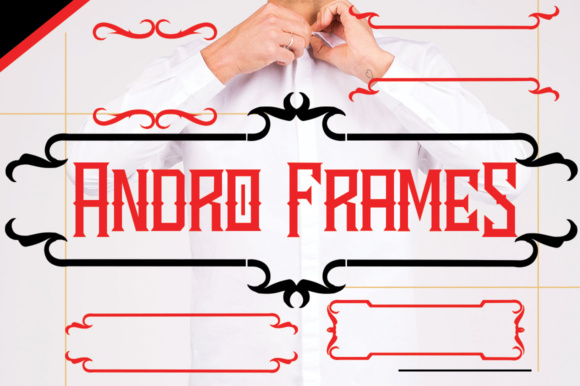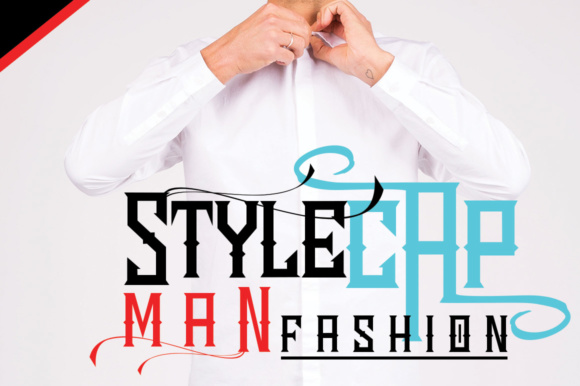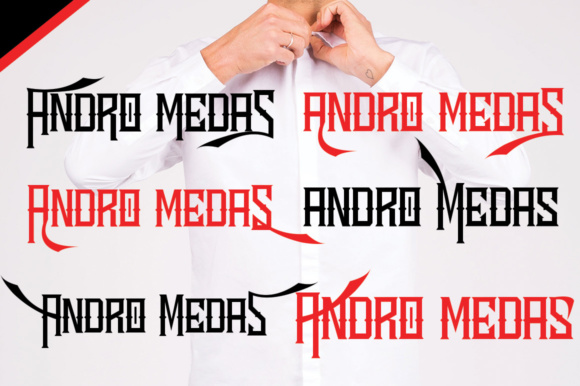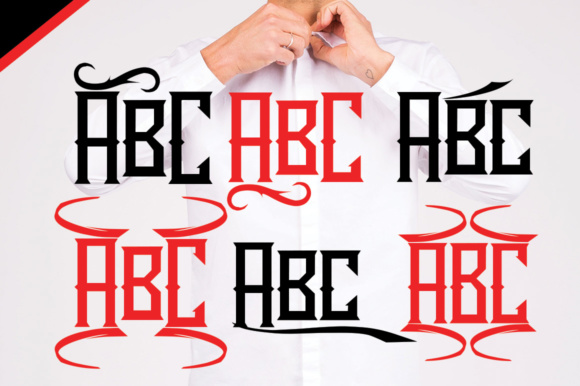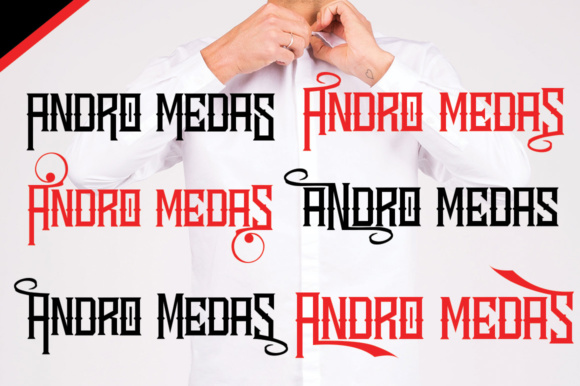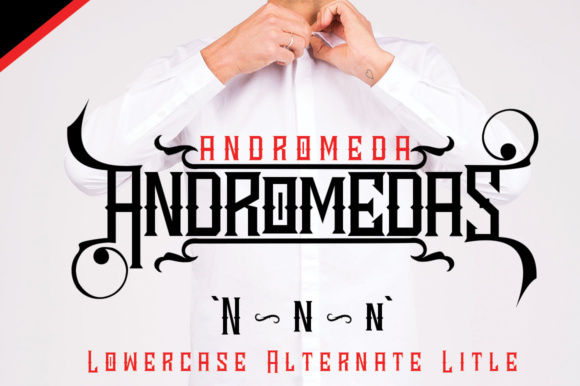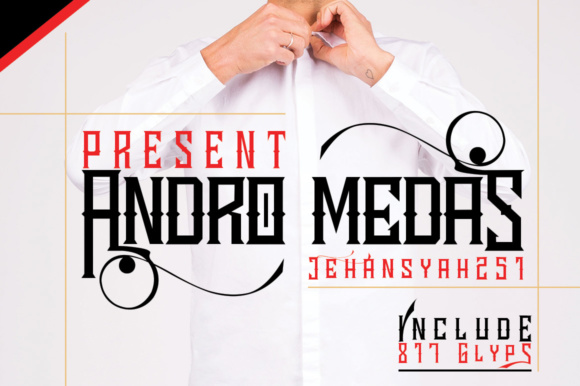
The Ultimate Guide to Andro Medas Font: Elevate Your Designs with a Striking Display Typeface
I’ll never forget the time I was working on a high-end fashion brand’s logo design project. My client wanted a font that exuded luxury, yet had an edgy, modern twist. After scouring through countless font libraries, I stumbled upon Andro Medas – a striking display typeface that instantly caught my attention. Its unique blend of tattoo and graffiti elements, paired with a sophisticated feel, made it the perfect fit for the project. In this article, I’ll share my experience with Andro Medas, its features, and how to make the most of this incredible font.
An Honest Review of Andro Medas Font
What I Love About Andro Medas ✨
• 💥 Unique tattoo and graffiti-inspired design with a luxurious feel
• ✅ Highly legible, even at larger font sizes
• 🎨 Extensive range of OpenType features, glyphs, and stylistic alternates
• 🖌️ Perfect for headlines, titles, and short text passages
• 🤔 May not be suitable for body text or longer passages due to its bold, attention-grabbing nature
• ⚠️ Some characters may require manual kerning for optimal spacing
The Backstory Behind Andro Medas Font
Andro Medas was designed by a renowned type designer who drew inspiration from the world of tattoo art and graffiti. The font’s unique blend of bold, edgy lines and luxurious feel makes it perfect for designers looking to add a touch of sophistication to their projects.
What is Andro Medas font best used for? Andro Medas is ideal for headlines, titles, and short text passages in designs that require a bold, attention-grabbing look, such as luxury branding, advertising, and fashion.
Does Andro Medas support OpenType features? Yes, Andro Medas supports a range of OpenType features, including stylistic alternates, glyphs, and ligatures.